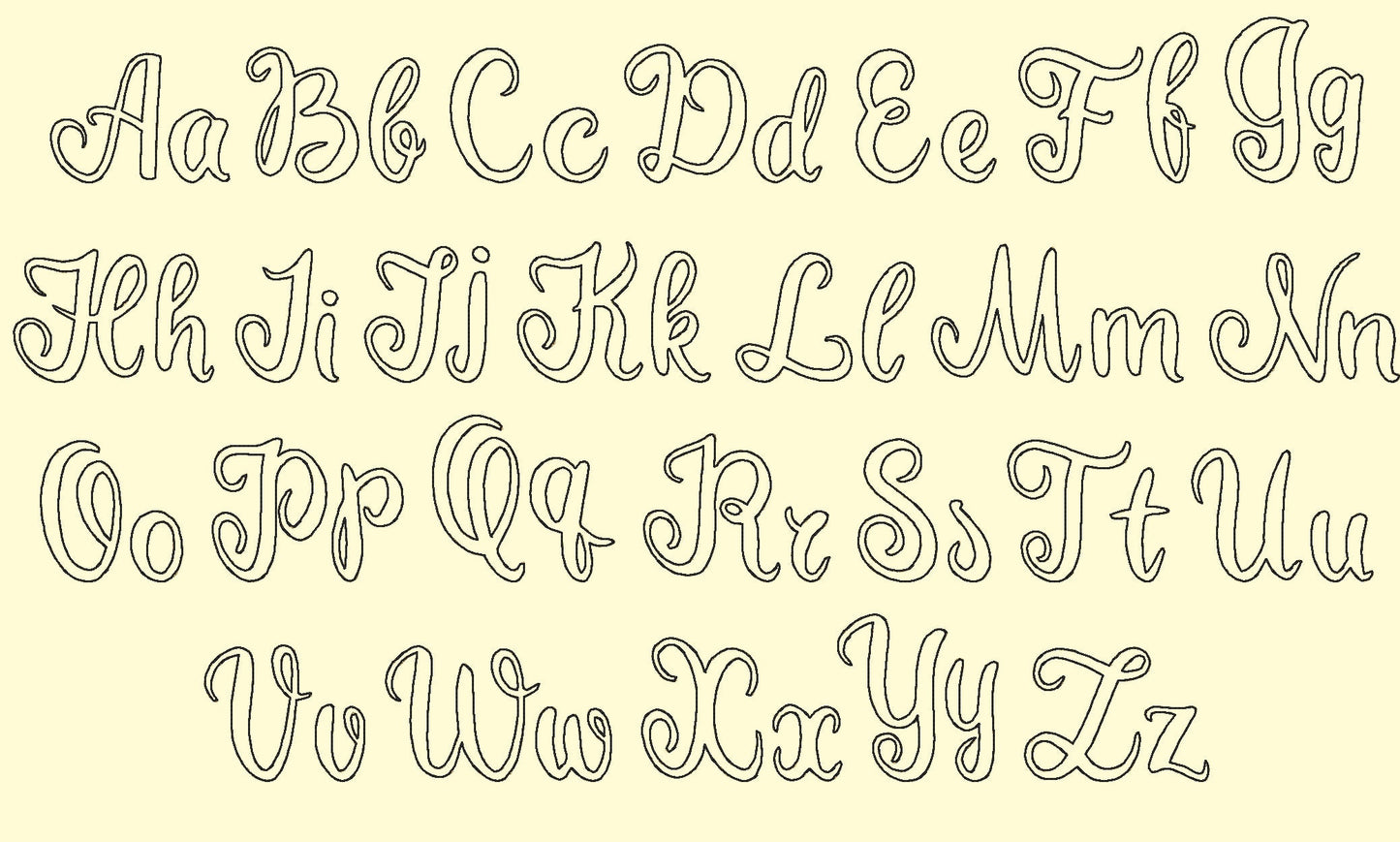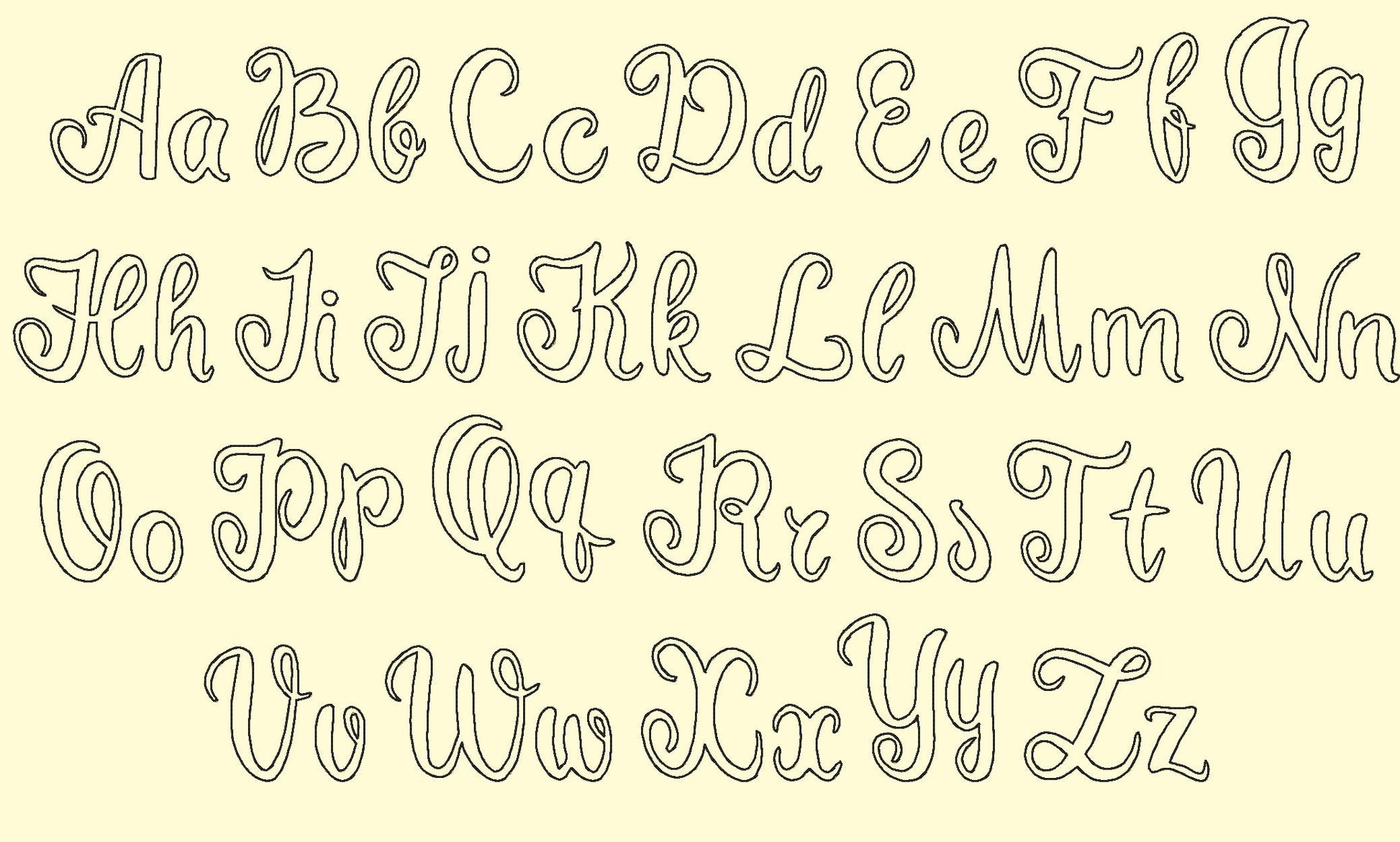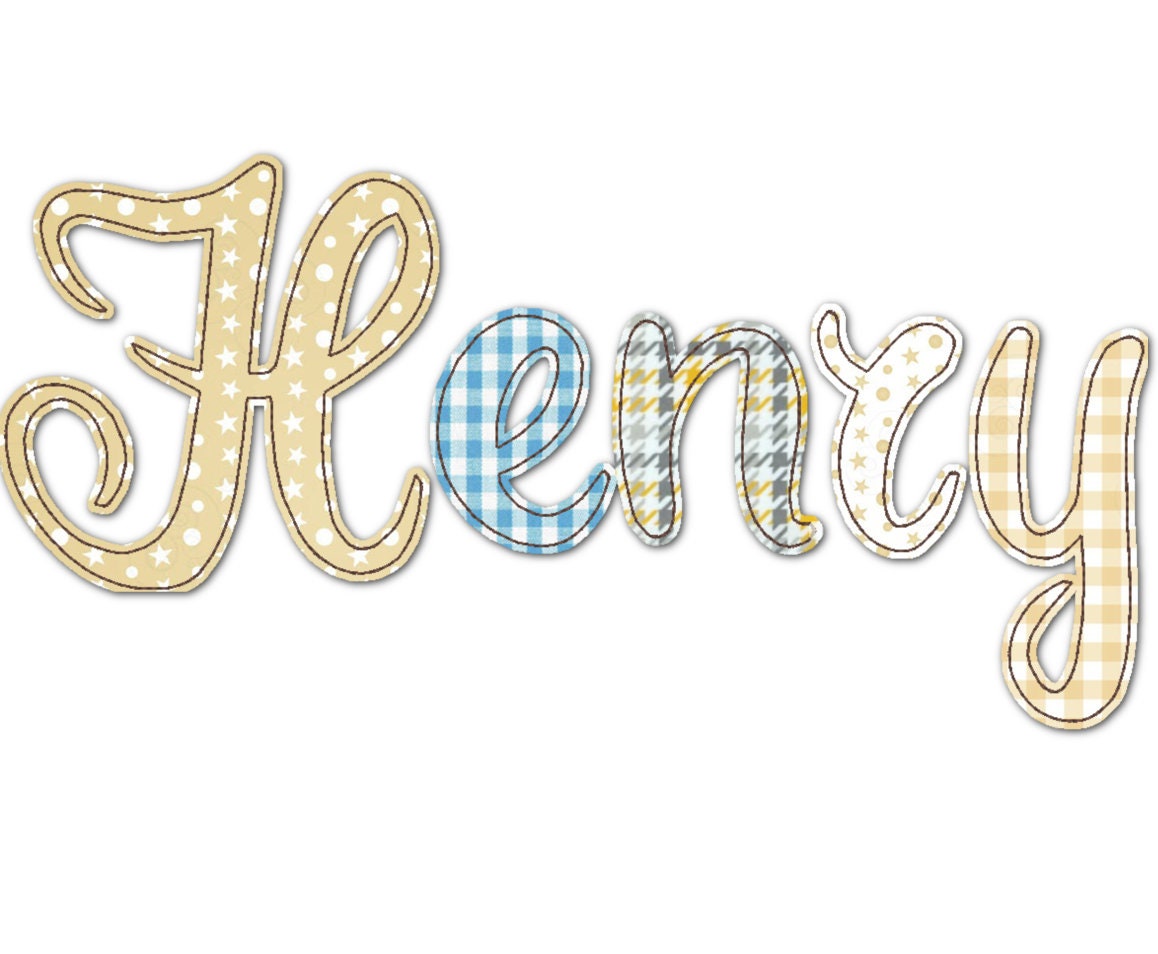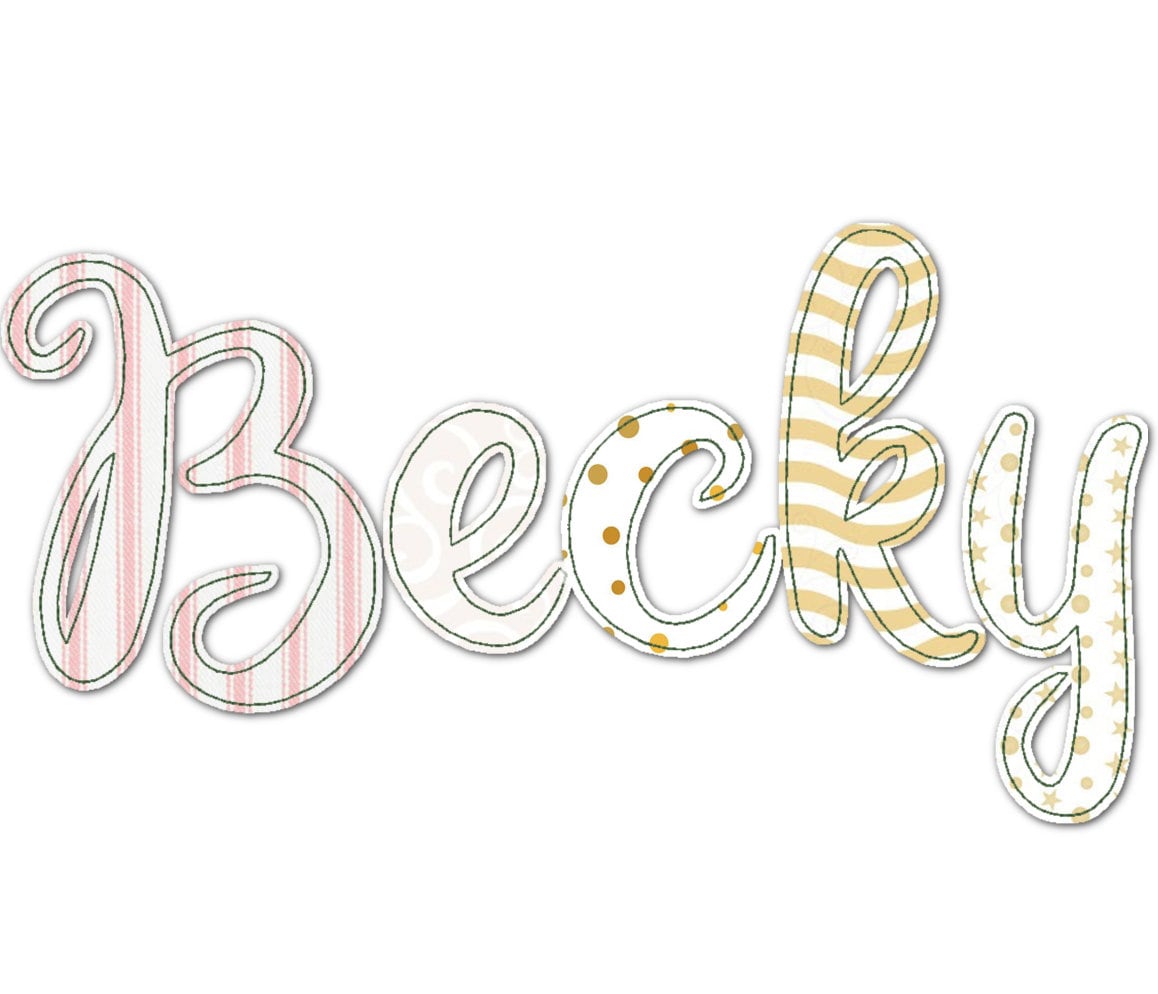
Raggedy Edge Applique Font Becky
Included: Uppercase A-Z, Lowercase a-z
A raggedy edge applique font with free, raw edges for a soft, handmade look. Lovely for baby quilts, pillows, kids' shirts and bags.
Uppercase and lowercase letters in ten sizes: 1.2, 1.4, 1.9, 2.3, 2.8, 3.3, 3.7, 4.2, 5.1 and 6.1 inches. Free-edge applique that frays softly after washing.
• Raggedy edge applique font
• Uppercase and lowercase letters
• 10 sizes, 1.2 to 6.1 in